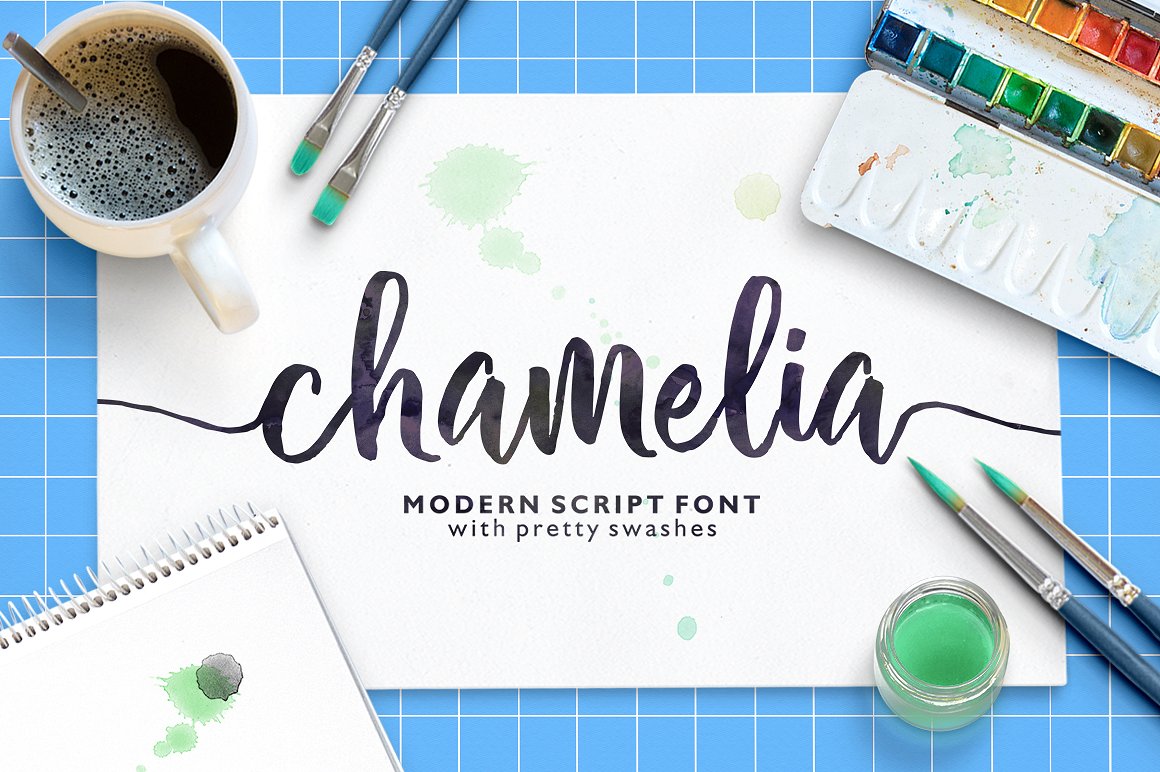
Chamelia Script
Chamelia Script Font
Chamelia Script is a modern script calligraphy, dynamic and pretty with swashes. Can used for various purposes. such as the title, signature, logo, wedding invitations, letterhead, signage, labels, newsletters, posters, badges, etc.